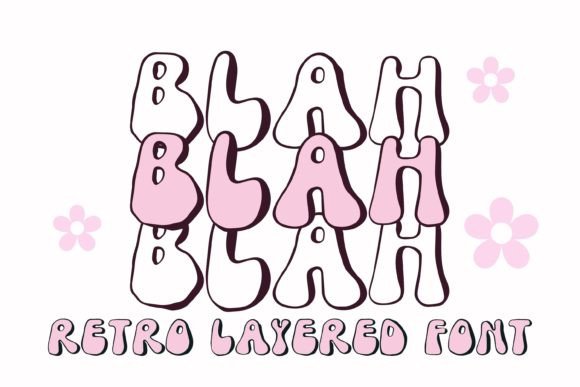
Behold! Blah Blah Blah Font, a mesmerizing display font crafted by BitongType to captivate your digital horizons. Embark on a psychedelic journey through the realm of typography, as this retro layered font transports you back to the groovy era of the 60s and 70s. Its audacious style and playful spirit will infuse your designs with an infectious energy, demanding attention at every turn.
Unleash your creativity and watch as Blah Blah Blah Font weaves its magic across logos, posters, branding projects, and social media graphics. Its vibrant personality shines through, adding a touch of nostalgia and exuberance to your creations. Prepare to astound your audience with visually striking headlines, captivating website designs, and eye-catching social media posts that exude an unparalleled retro charm.
Blah Blah Blah Font is not merely a font; it's a gateway to a time where colors danced, flowers blossomed, and peace signs filled the air. Let its groovy aura infuse your work with an irresistible appeal, propelling your designs to new heights of aesthetic brilliance. Its timeless charm ensures that your creations will resonate with audiences of all ages, forging a connection that transcends generations.
Embrace the power of Blah Blah Blah Font and watch as your digital creations blossom into masterpieces of visual delight. Its versatility extends from online platforms to print media, making it the perfect choice for flyers, brochures, product packaging, and merchandise that oozes retro flair. Join the ranks of savvy designers who recognize the transformative power of Blah Blah Blah Font and elevate your designs to legendary status.